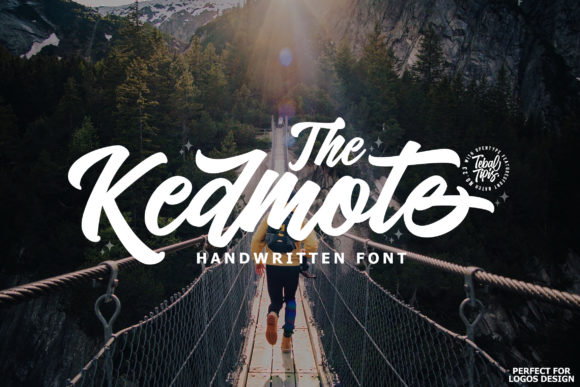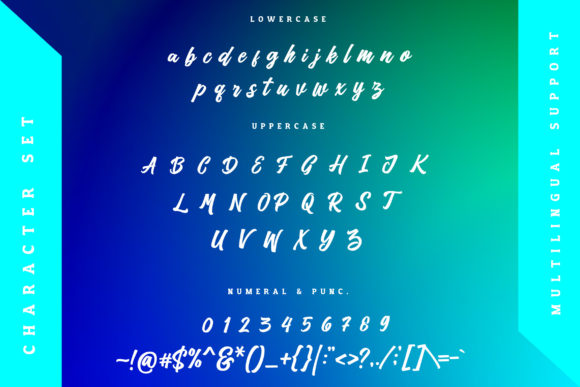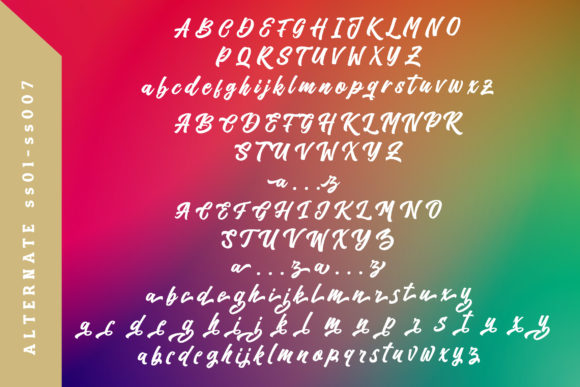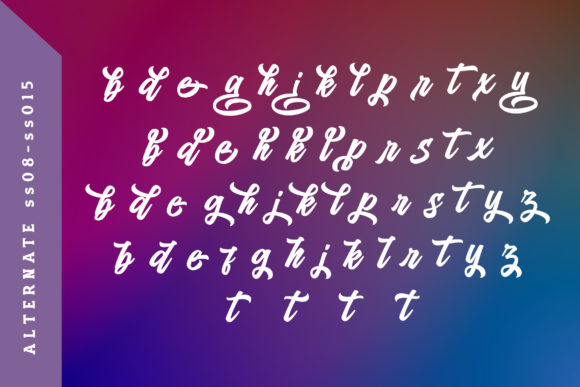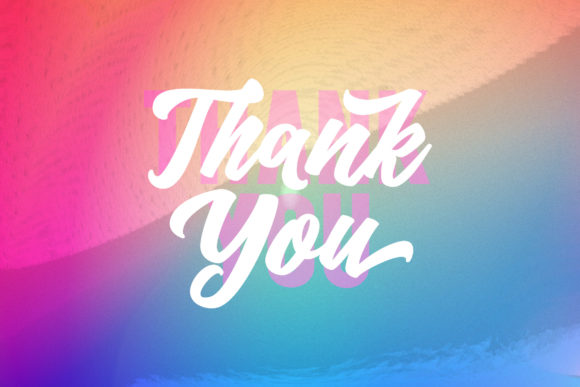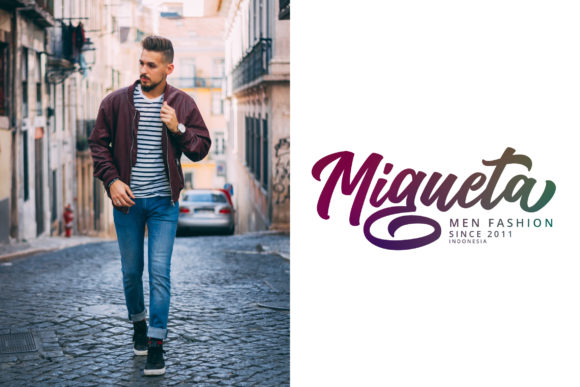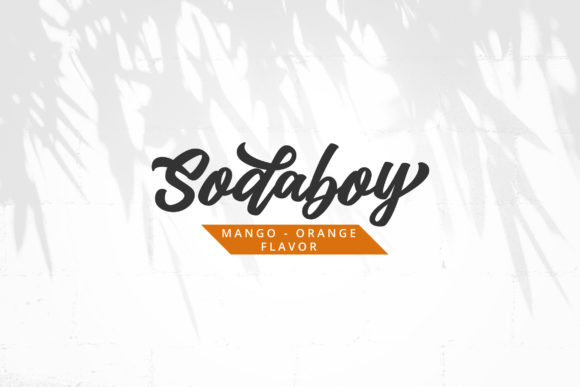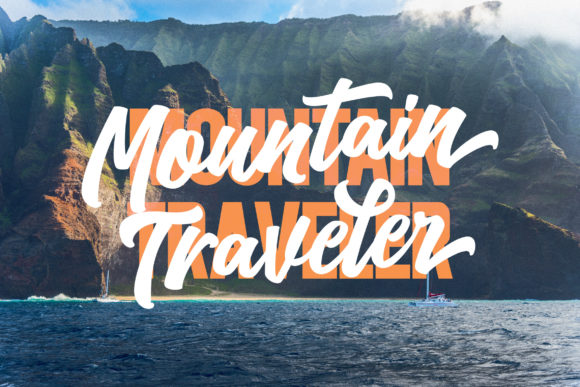
The Kedmote Script Font
About The Kedmote Script Font
The Kedmote is a remarkably unique handwritten font, carefully crafted to perfection! It has well-balanced curves and a stylish personality, perfect for logos, headlines, badges, packaging, and many other projects! This font is PUA encoded which means you can access all of the glyphs and swashes with ease!